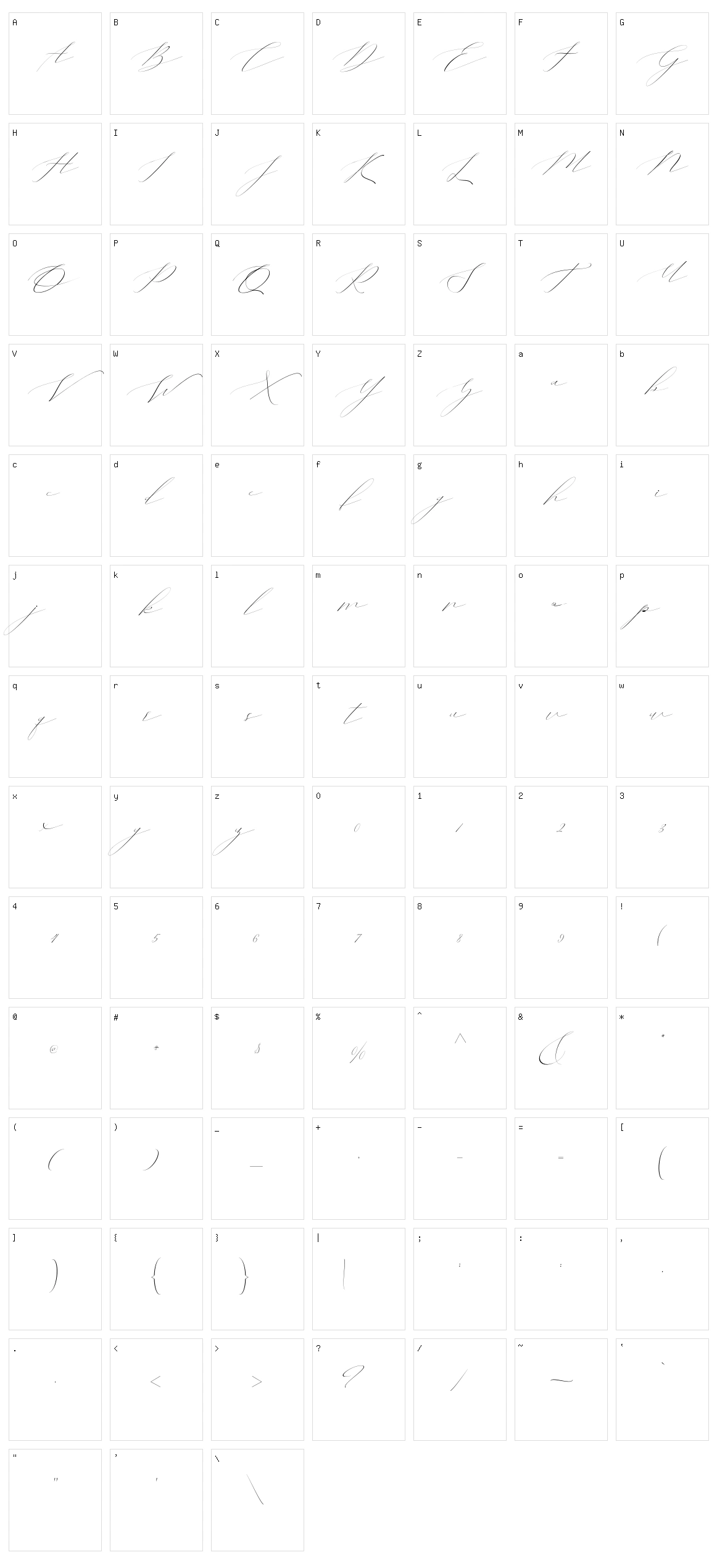
The free font Vineshia Jonhson is carefully designed by Muhammad Akbar, showcasing a thoughtful balance of creativity and usability and falls under the Script font style. When you download the ZIP file, it contains only 39.38 KB of font files, making it lightweight and quick to download. Please review the license details below to understand permitted usage and distribution rights. If license information is not available, we recommend using this font for personal projects only or contacting the author directly for commercial usage permissions.